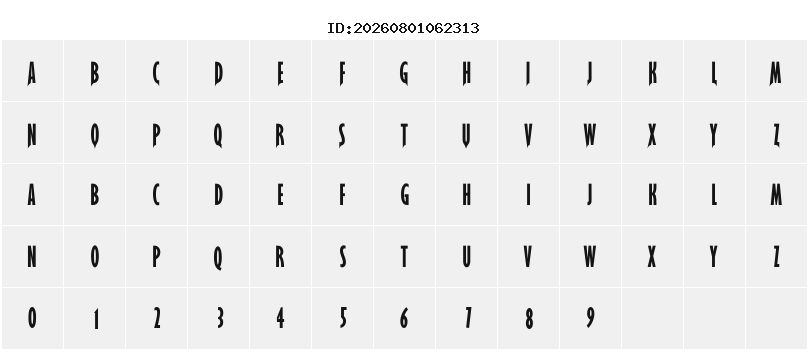
About LOAD.ttf
LOAD.ttf is a modern, elegant sans-serif font designed for ultimate readability and visual harmony. Perfect for branding, headlines, web design, and print materials.